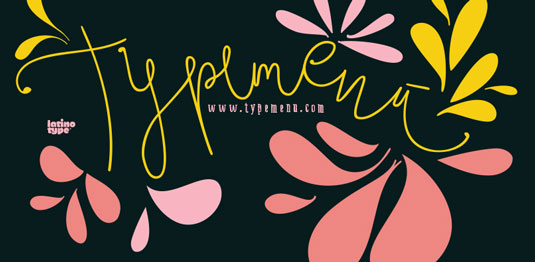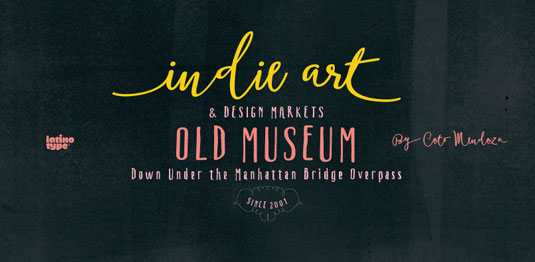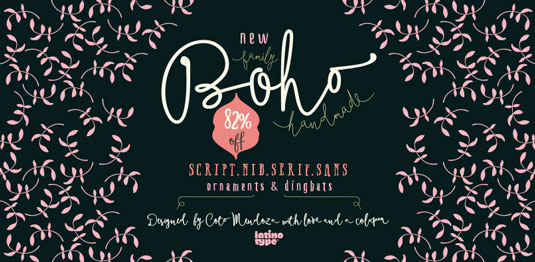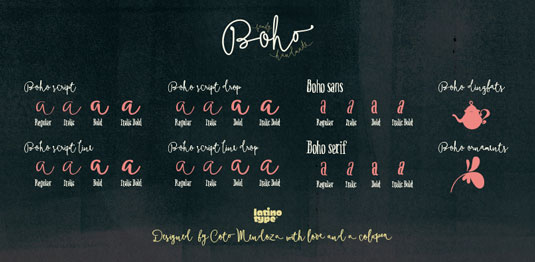
Font of the day: Boho
Every day we showcase the best fonts on the web. Today it's Boho by Coto Mendoza.
Boho by Coto Mendoza
Boho is designer Coto Mendoza's first script font family, which is based on gestual calligraphy. "Boho is inspired by a bohemian girl who is a free soul and creative spirit," Mendoza comments on HypeForType. "She is a city girl, but she loves spending a lot of time outdoors and being close to nature. She is a wild and free spirit who knows no bounds."